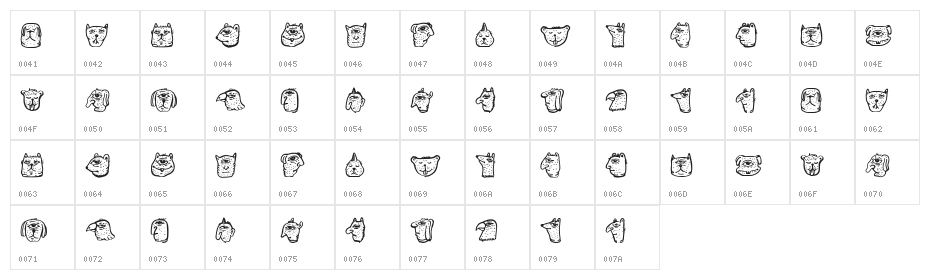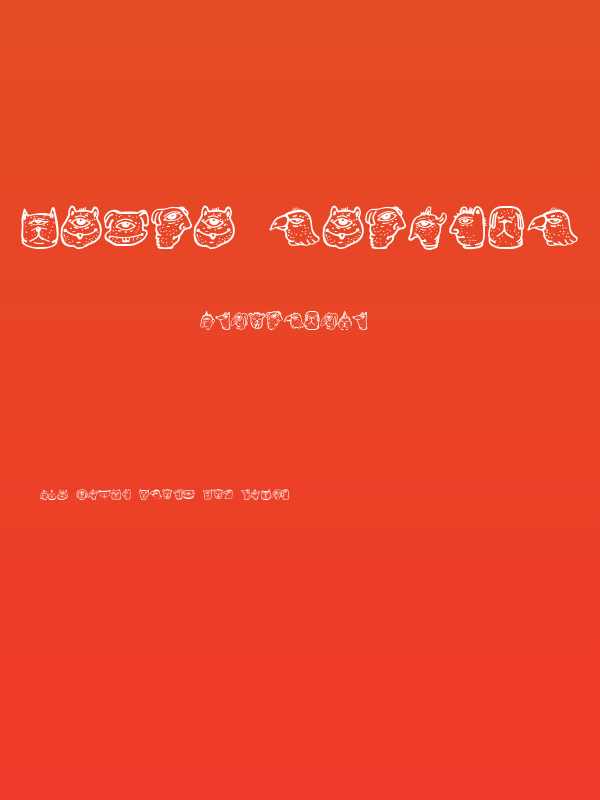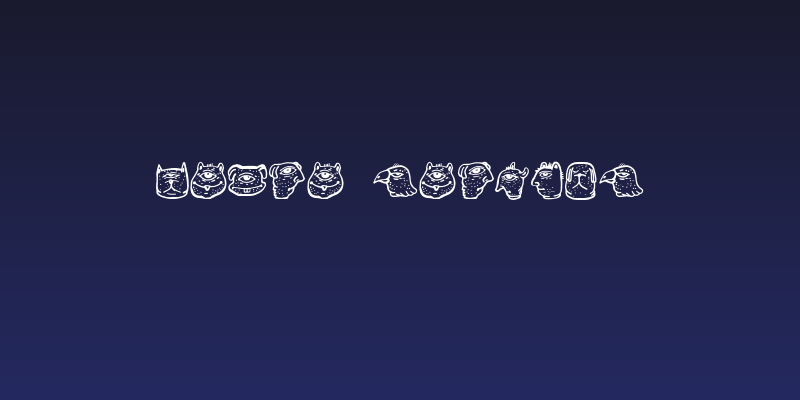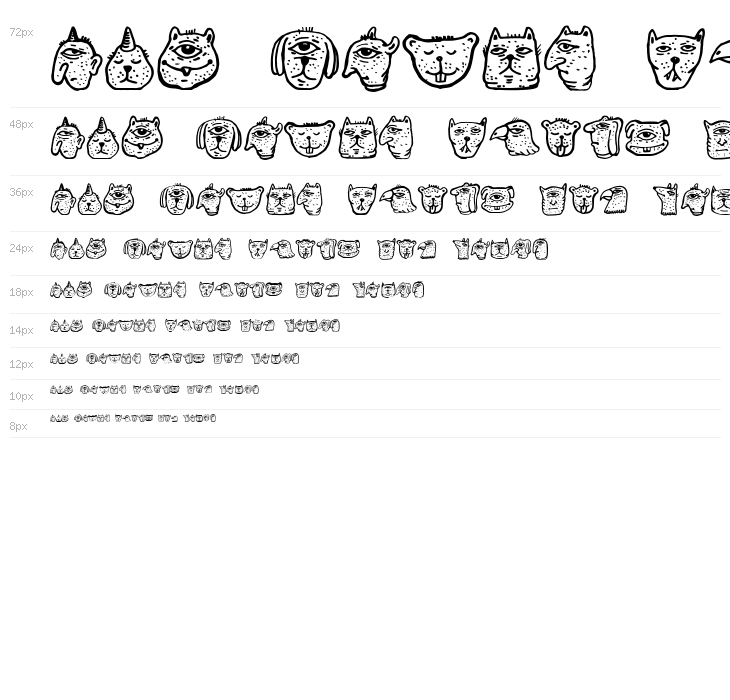
Menge Regular Font
Menge Regular Description
This font is a whimsical and playful collection of character illustrations, each representing a unique animal face. The style is hand-drawn with a sketch-like quality, featuring a variety of expressions and details that give each character a distinct personality. The line work is bold and uneven, adding to the quirky and artistic feel. The characters are arranged in a grid-like pattern, showcasing a diverse range of creatures from dogs to birds, each with exaggerated features such as large eyes and expressive snouts. This font is not intended for traditional text but rather as a decorative element that can add a fun and creative touch to projects.
| Use Case | Logos, Decorative elements |
| Proposed Projects | Ideal for children's book illustrations, playful branding, greeting cards, and creative posters. |